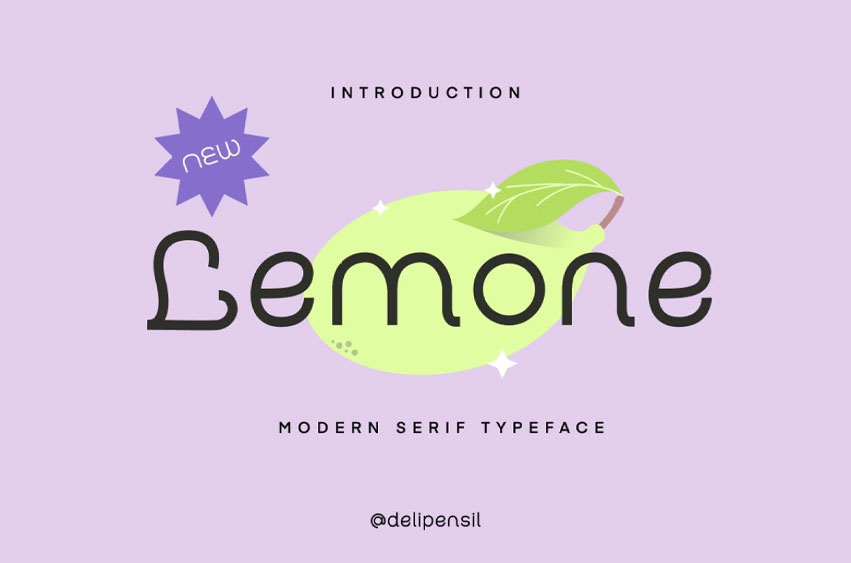
Lemone Font Beauty Serif font, clean classic and mindful , it combine in one font, use this font for anything beauty place for your logo, headline, cover book, magazine and many more.
It is perfect for your upcoming projects.